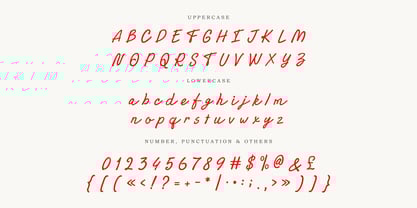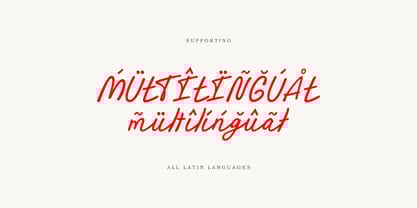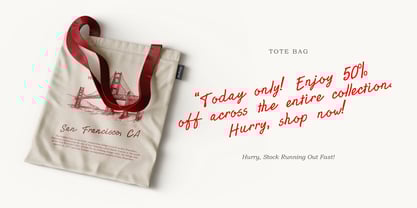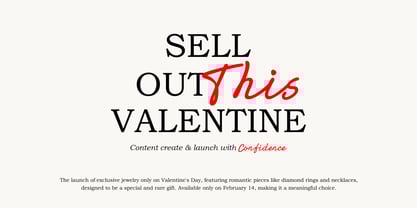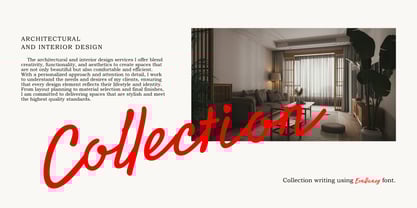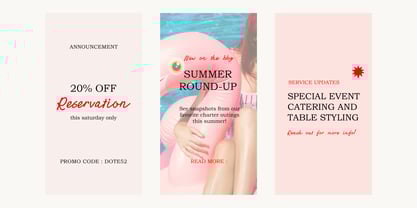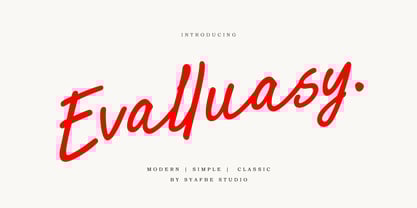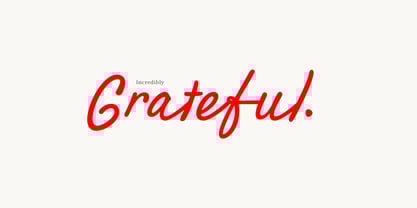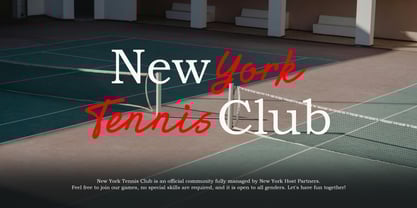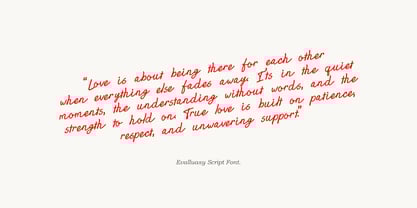
Evalluasy
by Syafbe
The Evalluasy Font Family was designed by Syafwan Mus and published by Syafbe. Evalluasy contains 1 styles. More about this family
Evalluasy: A Dynamic and Elegant Font Evalluasy font features dynamic, flowing letterforms that create a simultaneously modern and elegant impression. Each letter is crafted with smooth curves and seamless connections, offering a sense of fluidity and freedom. Its bold and open shapes convey spontaneity while maintaining a clear structure, reflecting a balance between creativity and professionalism. The elongated, curved letterforms add a touch of sophistication, and the slight slant enhances the feeling of continuous movement.   The flexibility of Evalluasy lies in its versatility across various contexts, including branding, logos, or digital media. The elegant yet simple design adapts to both casual and formal styles. These flowing letterforms convey messages in a powerful yet gentle manner, making it perfect for creating a lasting impression and easy recognition in any visual communication.
Designers: Syafwan Mus
Foundry: Syafbe